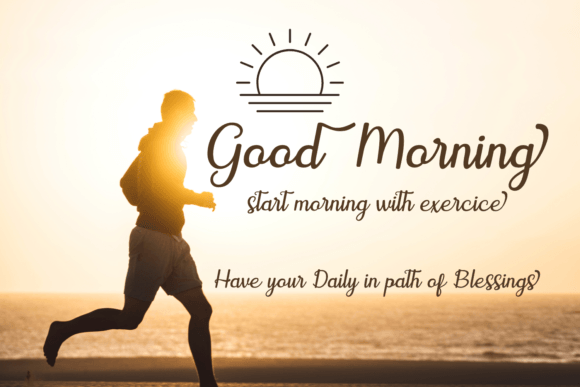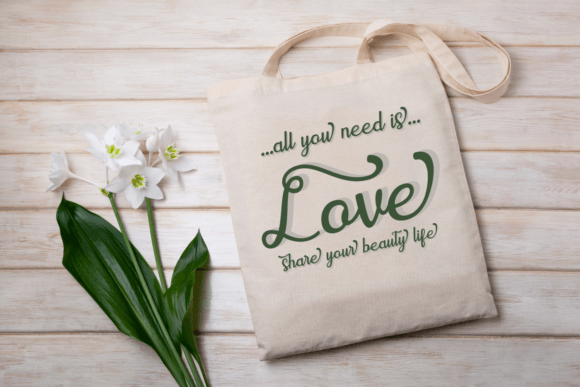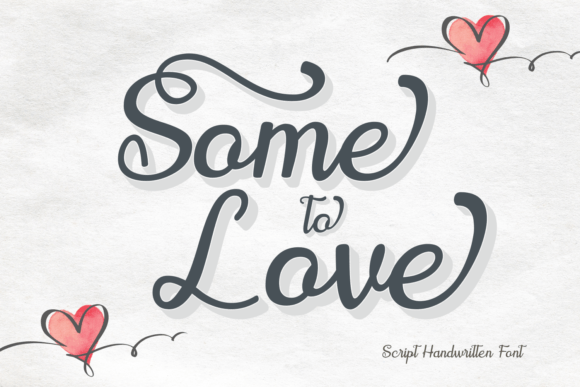
Some To Love Font
Some To Love Font is a beautiful handwritten font with elegant and flowing letters. It gives a warm and personal touch to any project. Perfect for invitations, greeting cards, and creative designs, this font makes your words feel special and heartfelt.